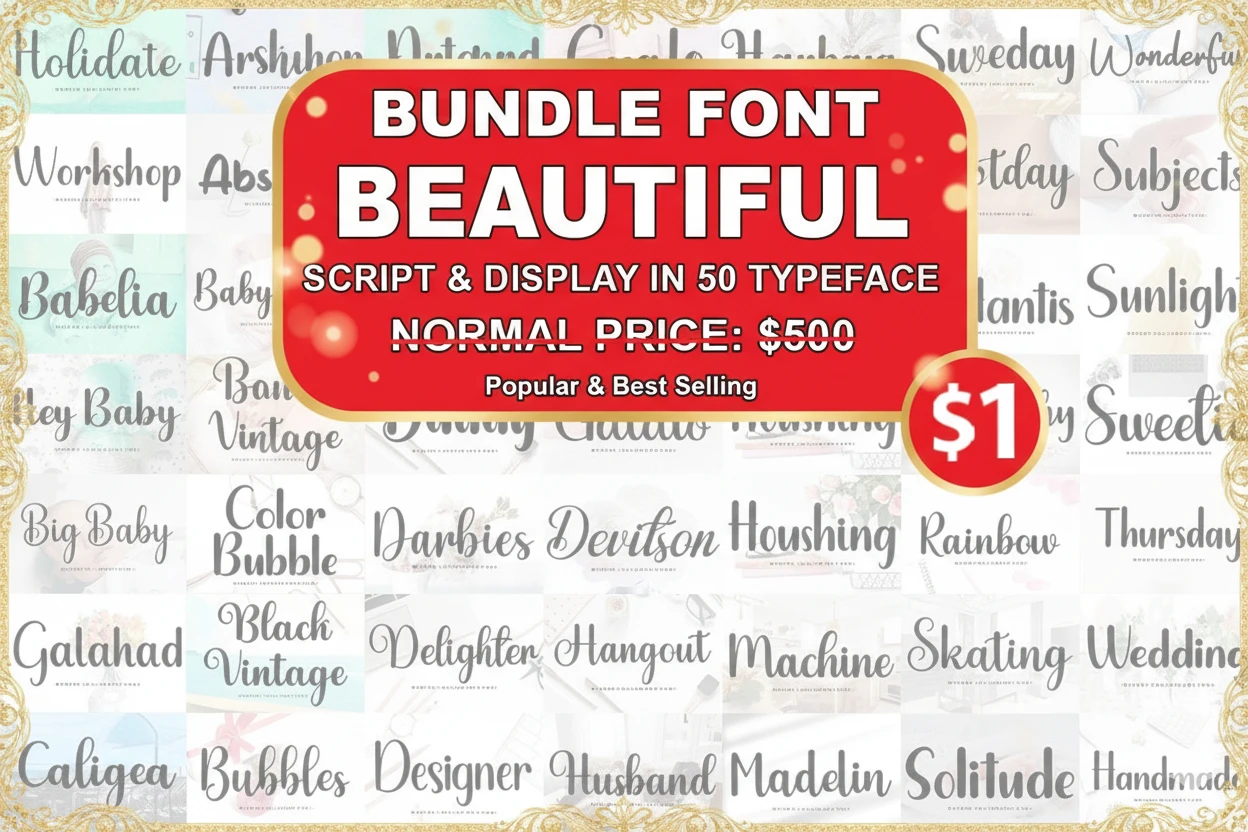
Beautiful Font Bundle – 50 Premium Script & Display Fonts
If you work with branding, invitations, packaging, or social media graphics regularly, you probably know how hard it is to find font bundles that actually feel usable. A lot of big bundles look impressive at first, but once you install them, half the fonts end up sitting untouched in your folder.
This one felt a bit different.
The Beautiful Font Bundle includes 50 premium script and display fonts with a mix of elegant serif styles, handwritten lettering, signature fonts, clean sans serifs, and decorative display typefaces. The collection leans heavily toward modern branding aesthetics, especially the kind of typography that works well for beauty brands, boutique packaging, wedding templates, Pinterest graphics, and feminine logo design.
One thing I noticed while going through the bundle is that the fonts aren’t overly trendy in a way that’ll feel outdated in six months. A few have that soft luxury-brand look you see everywhere lately, but there are also simpler options that are easier to pair in real projects.
What’s Included in the Bundle
Inside the bundle, you’ll find:
- Script fonts
- Serif fonts
- Sans serif fonts
- Signature fonts
- Display fonts
- Calligraphy styles
The variety is honestly what makes it practical. Sometimes font bundles overload you with 30 nearly identical handwritten fonts, but this one mixes styles enough that you can actually build combinations from a single pack.
A few fonts work especially well for:
- Product labels
- Candle packaging
- Fashion branding
- Wedding invitations
- Instagram quote posts
- Etsy shop graphics
- Boutique logos
- Printable templates
I could also see several of these working nicely for Canva users who want something cleaner than the default font library.